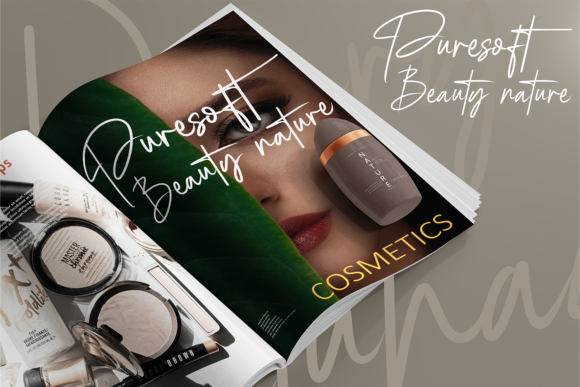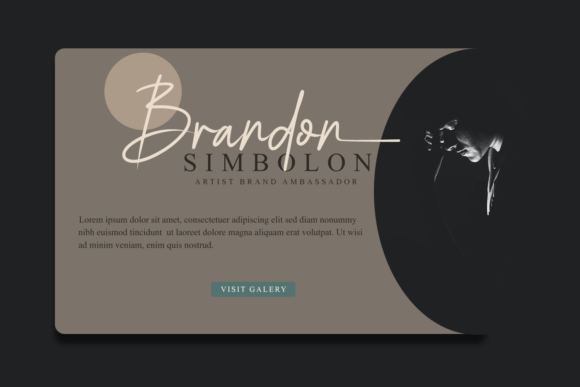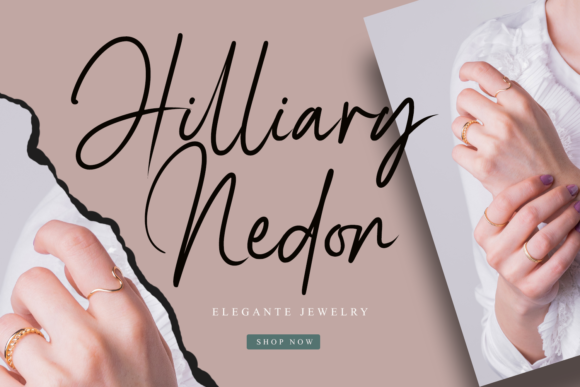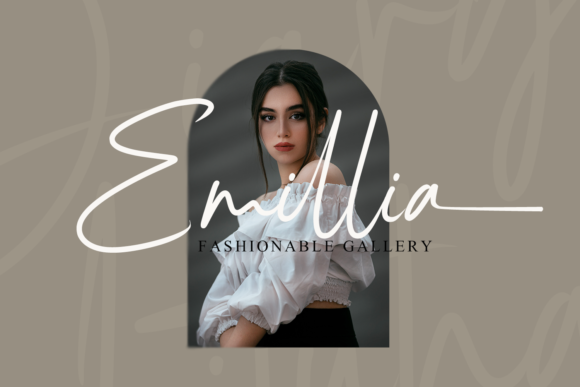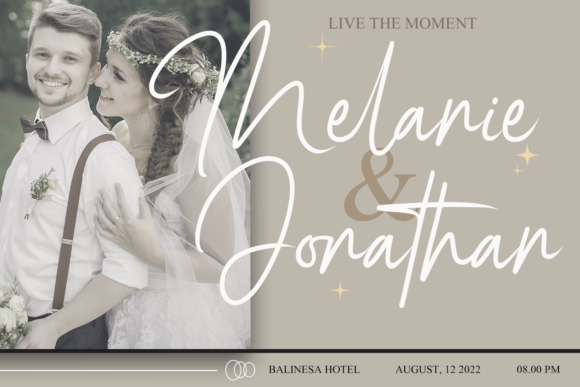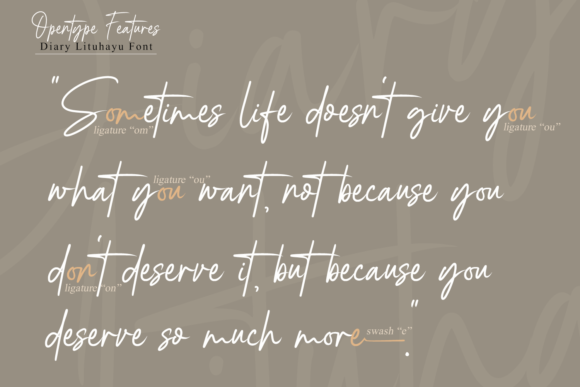
Introduction to Diary Lituhayu Font
Diary Lituhayu is Script Font with an elegant and signature style, that is very beautiful, luxurious, and high class for creating handwritten-style logos, wedding stationery, photographer watermarks logos, modern websites, fashion branding, name card, wedding invitation, and all the identity of your business products.
This font is PUA encoded which means you can access all of the amazing glyphs and ligatures with ease .
Key Features of Diary Lituhayu Font
Why Choose Diary Lituhayu Font?
Diary Lituhayu Font offers exceptional quality and versatility, making it a valuable addition to your design toolkit. Whether you’re creating for personal projects or commercial use, Diary Lituhayu Font delivers professional results.